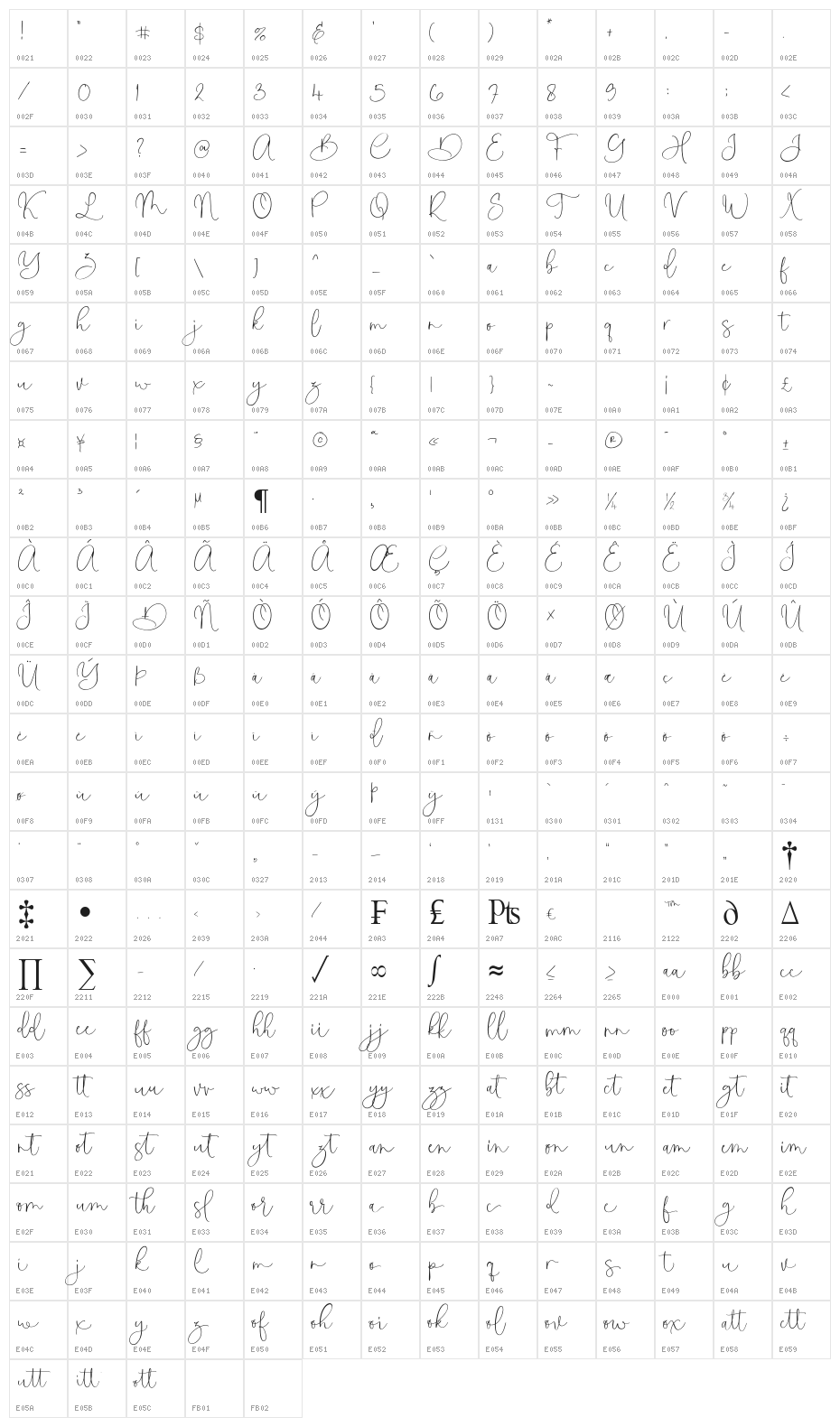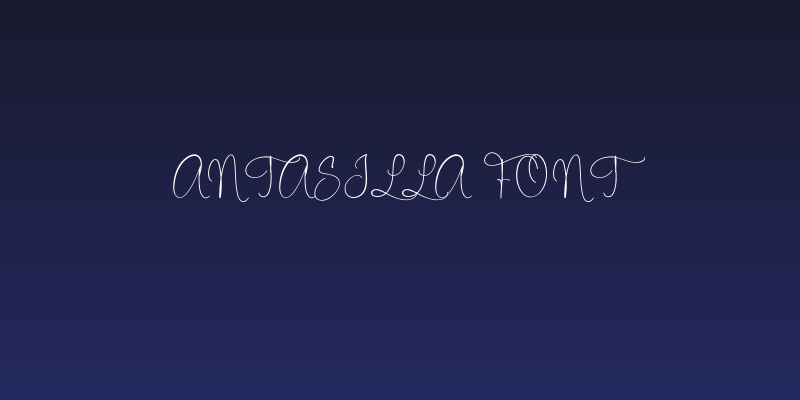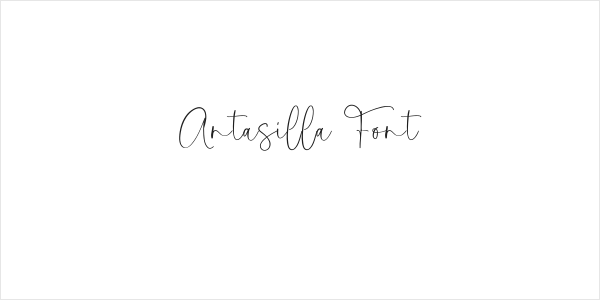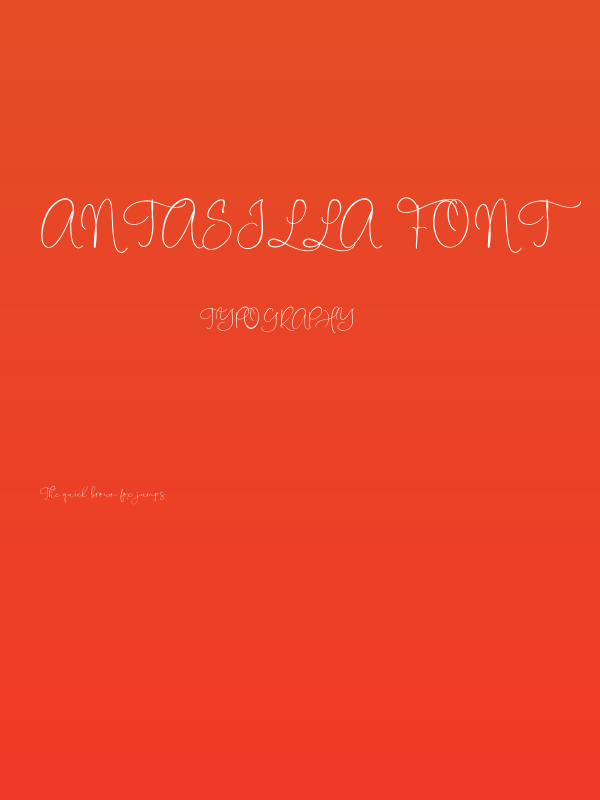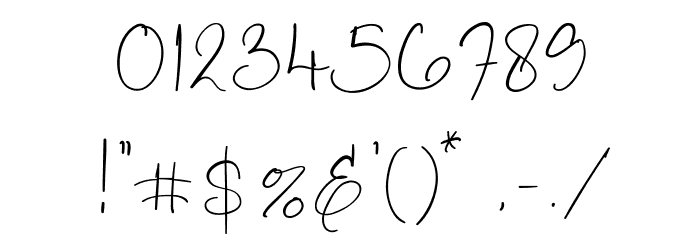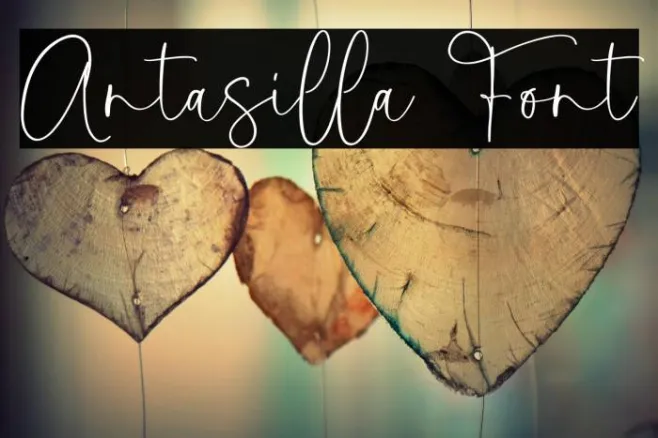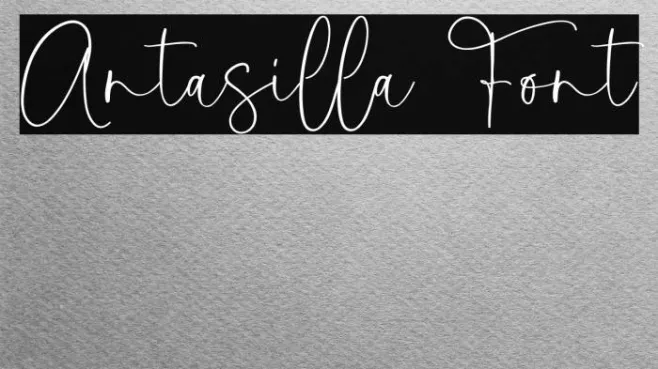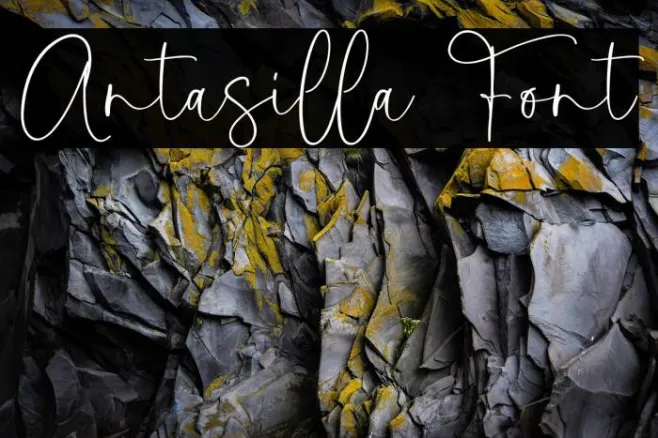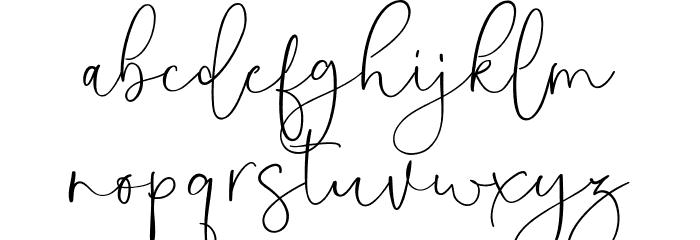
Antasilla Font Font
Antasilla Font Description
This font features an elegant and flowing script style, characterized by its smooth, continuous strokes and delicate curves. The uppercase letters are ornate, with intricate loops and swirls that give a sense of sophistication and grace. The lowercase letters maintain a consistent fluidity, enhancing the overall cohesive appearance. Numbers and special characters are designed to complement the letterforms, maintaining the same elegant and airy feel. This font is perfect for projects that require a touch of elegance and refinement, such as wedding invitations, luxury branding, and high-end product packaging.